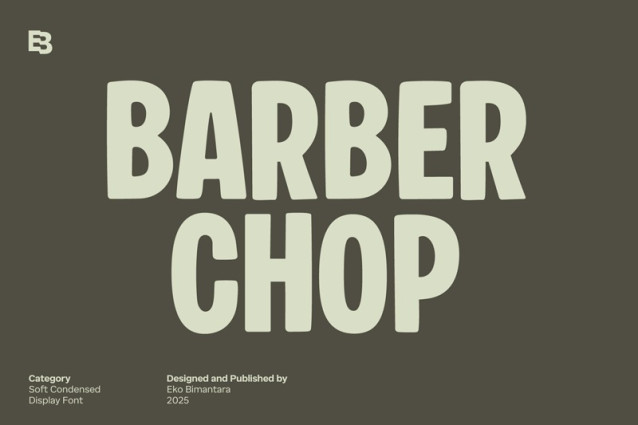
Barber Chop Font
Barber Chop Font a bold statement with our latest sans-serif font. With its clean lines and modern appeal, this font is sure to turn heads and leave a lasting impression. Perfect for headlines, logos, and any design that demands attention. It is both functional and stylish, making it a versatile choice for a wide range of design projects.